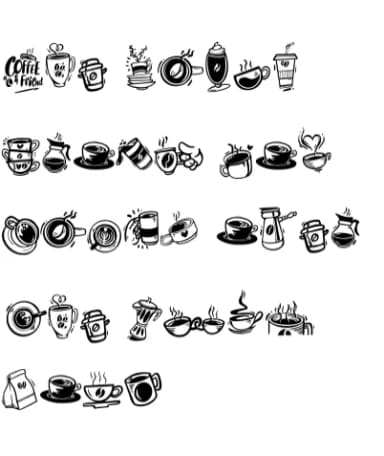
Cofee Lovers from designer onoborgol is a hand-drawn dingbats collection that celebrates coffee culture through a playful set of illustrations. Each character captures the warmth of coffee through beans, steaming cups, water droplets, latte art, and decorative flourishes rendered in a sketch-like style that feels hand-made rather than computer-generated.
This font shines on coffee shop menus where character-by-character decoration can draw the eye to featured drinks and specials. Barista name badges and café counter signage become more engaging with these playful elements sprinkled throughout. It's equally effective for Etsy sellers creating coffee-themed product labels, sticker sheets, or merchandise for their independent shops. DIY café signage, coffee-lover greeting cards, and Pinterest-ready social graphics all benefit from the authentic hand-drawn vector quality that suggests care and personality rather than stock-template sterility.
Cofee Lovers Font is a versatile dingbats font that works for both headings and body text. Pair it with a contrasting sans-serif or serif font to add visual interest and a clear distinction between titles and body copy.